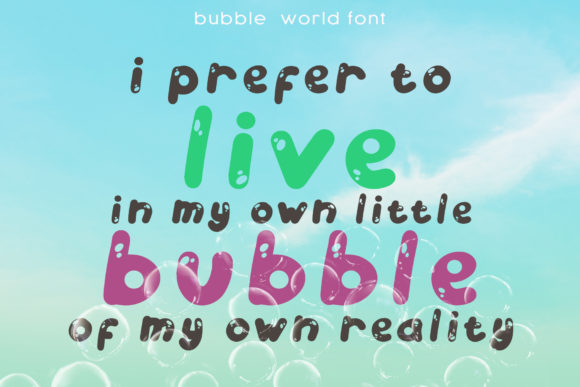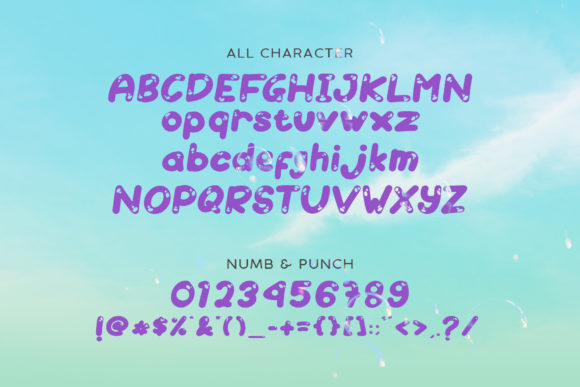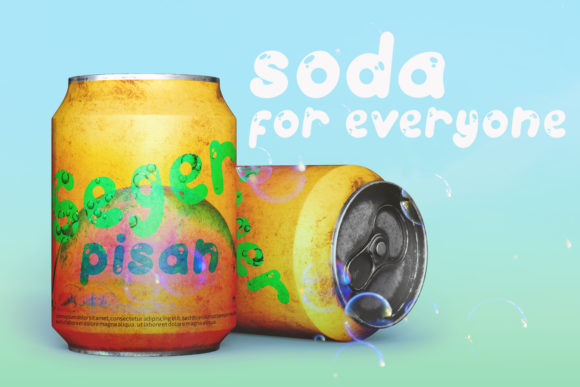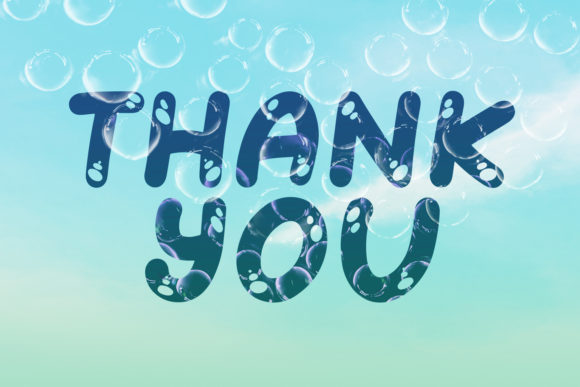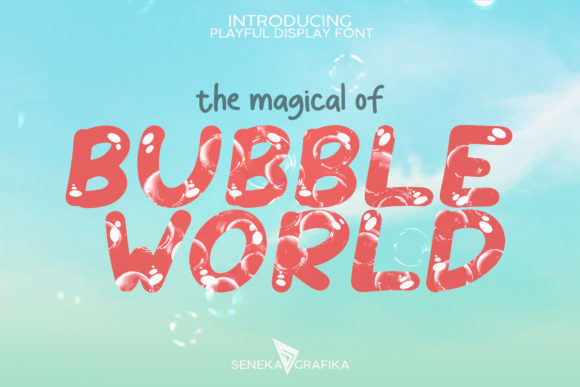
Bubble World Font: The Cute and Modern Display Font You Need
Are you tired of using the same old fonts for your designs? Look no further than Bubble World Font, a cute and modern looking display font that’s sure to elevate your creations. In this article, we’ll dive into the features and benefits of Bubble World Font, and explore how it can add a touch of fun and adaptability to your designs.
What is Bubble World Font?
Bubble World Font is a display font designed to make a statement. Its unique and playful design makes it perfect for a wide range of projects, from branding and advertising to packaging and crafts. The font’s modern and cute aesthetic is sure to capture the attention of your audience and leave a lasting impression.
Key Features of Bubble World Font
- Cute and Modern Design: Bubble World Font boasts a fresh and contemporary design that’s sure to appeal to designers and crafters alike.
- Adaptable: This versatile font can be used for a variety of projects, from digital designs to print materials.
- Fun and Playful: The font’s bubbly and energetic vibe is perfect for adding a touch of whimsy to your designs.
- Easily Readable: Despite its playful design, Bubble World Font remains easily readable, making it perfect for use in a variety of contexts.
Benefits of Using Bubble World Font
So why choose Bubble World Font for your next project? Here are just a few benefits of using this amazing display font:
- Adds Visual Interest: Bubble World Font’s unique design is sure to add visual interest to your designs and capture the attention of your audience.
- Perfect for Branding: The font’s modern and cute aesthetic makes it perfect for use in branding and advertising projects.
- Great for Crafts and DIY Projects: Bubble World Font is also perfect for crafters and DIY enthusiasts looking to add a personal touch to their projects.
How to Use Bubble World Font
Using Bubble World Font is easy. Here are a few tips for incorporating it into your next project:
- Pair it with Other Fonts: Bubble World Font pairs well with a variety of other fonts, making it easy to create visually interesting combinations.
- Use it for Headings and Titles: The font’s display design makes it perfect for use in headings and titles.
- Experiment with Colors and Textures: Don’t be afraid to get creative with colors and textures when using Bubble World Font.
In conclusion, Bubble World Font is a cute and modern looking display font that’s sure to elevate a wide range of creations. Its adaptable and fun design makes it perfect for designers and crafters looking to add a touch of whimsy to their projects. With its easily readable design and versatile features, Bubble World Font is a must-have for anyone looking to add some visual interest to their designs.